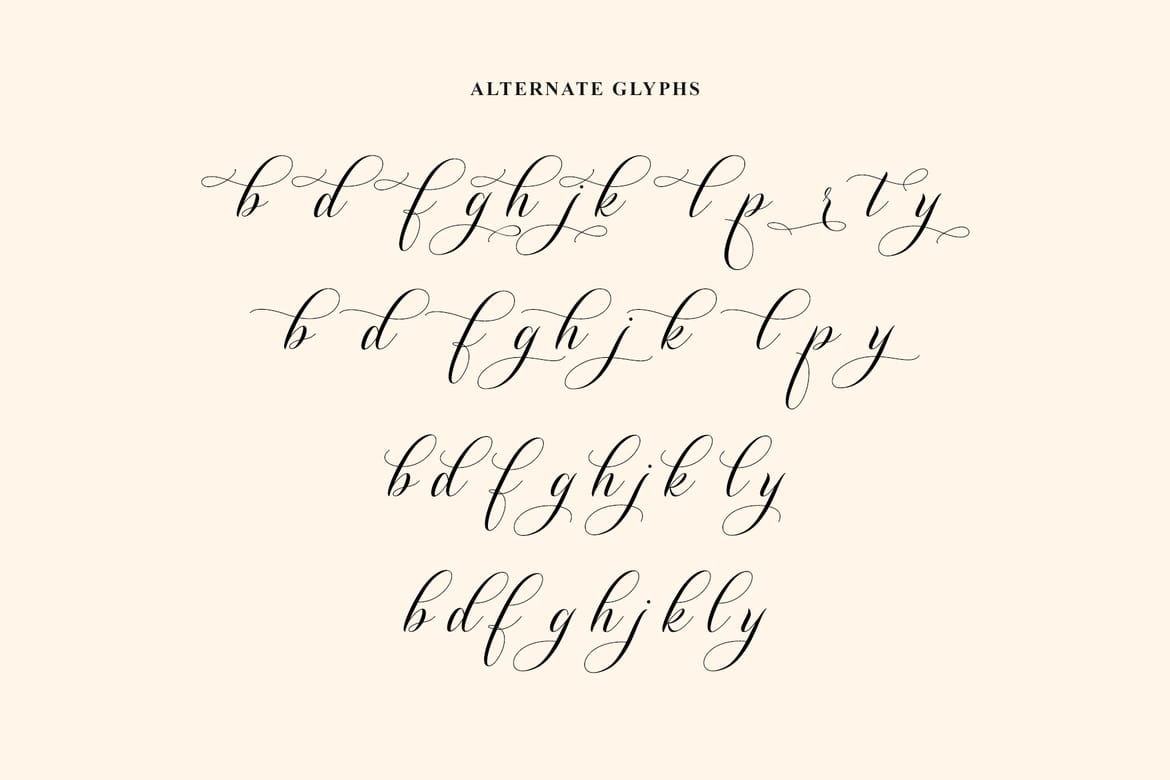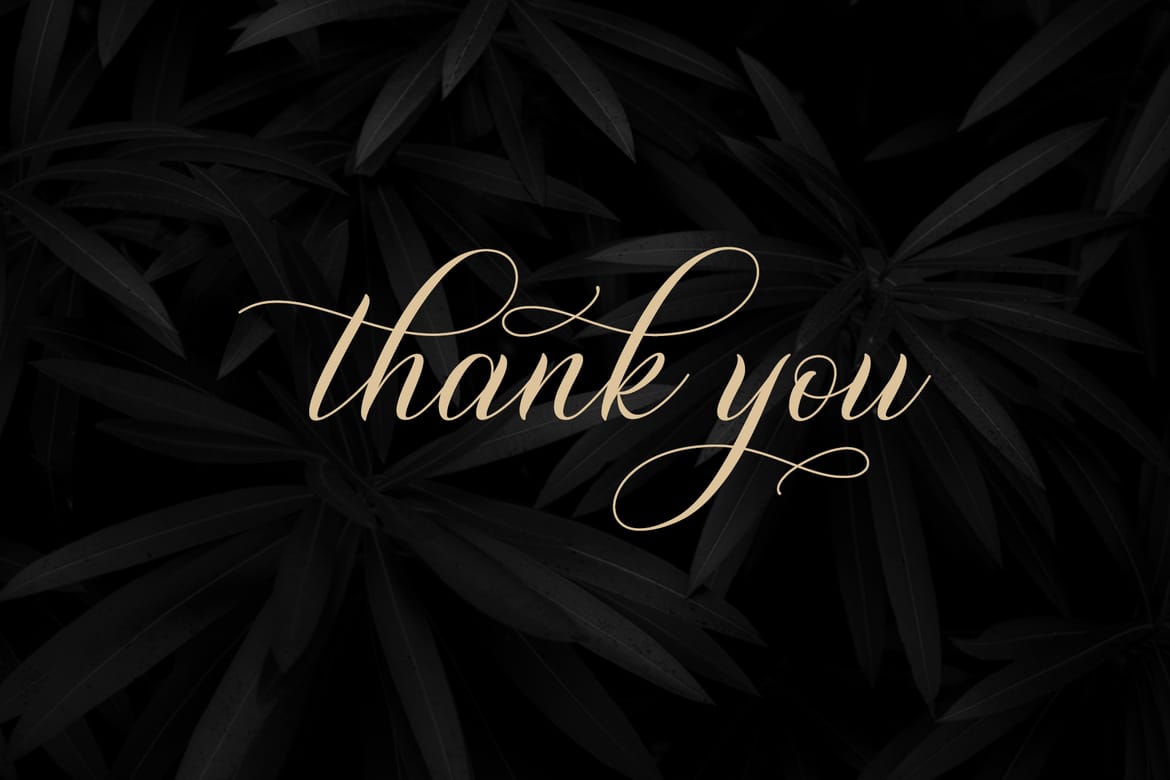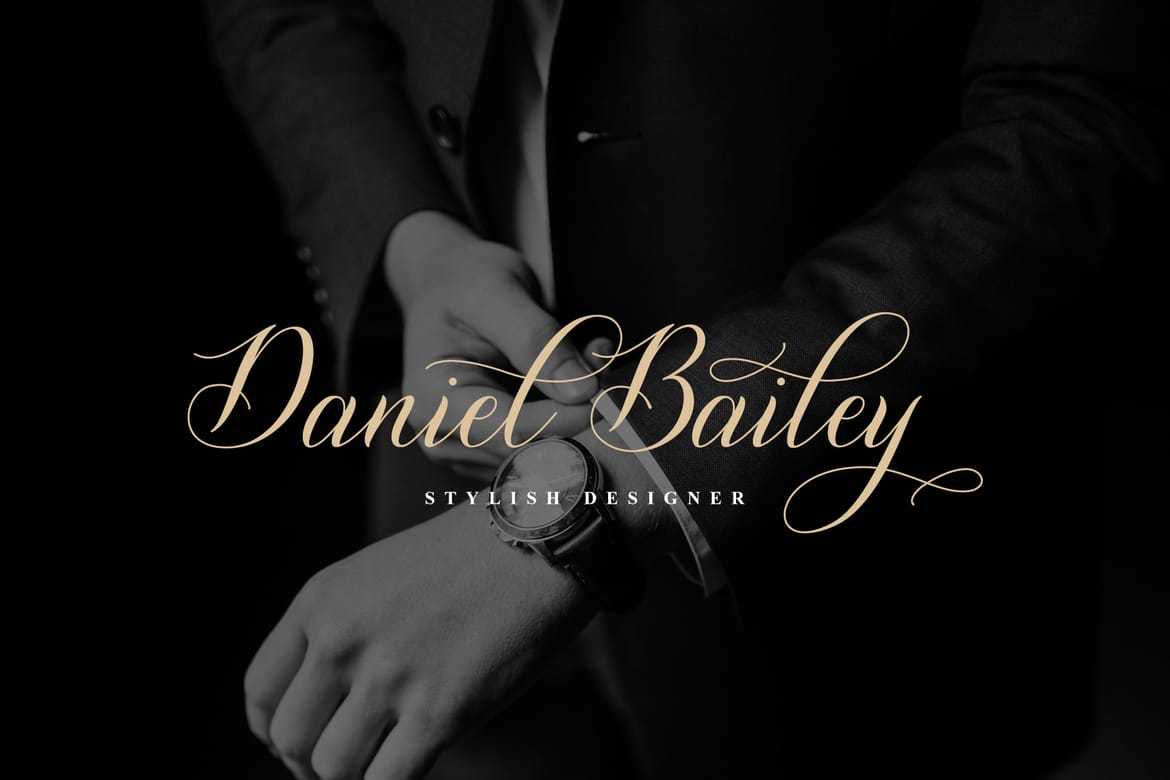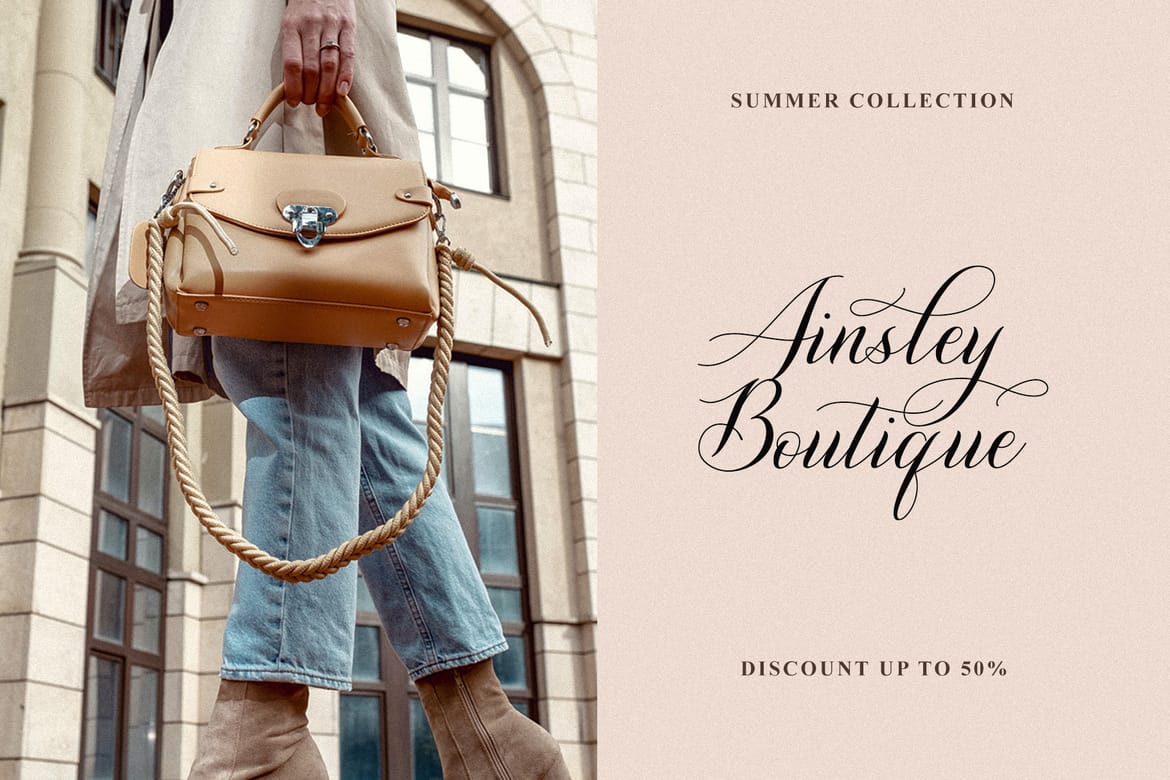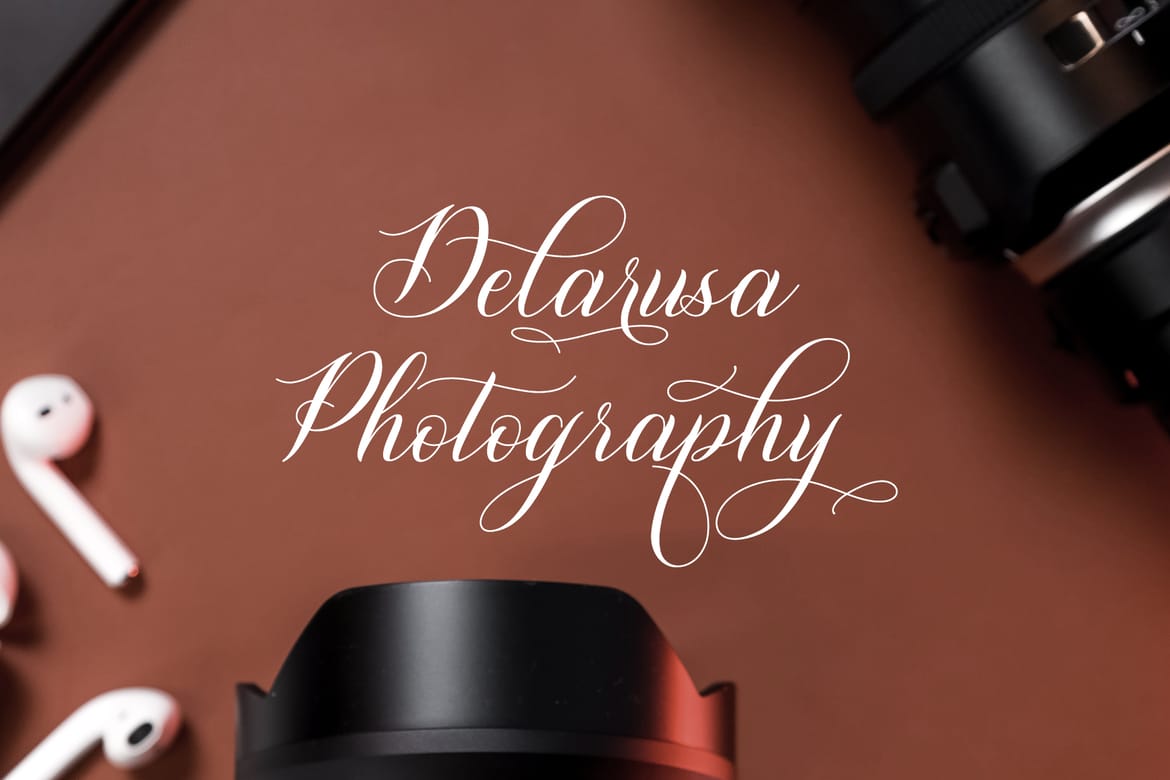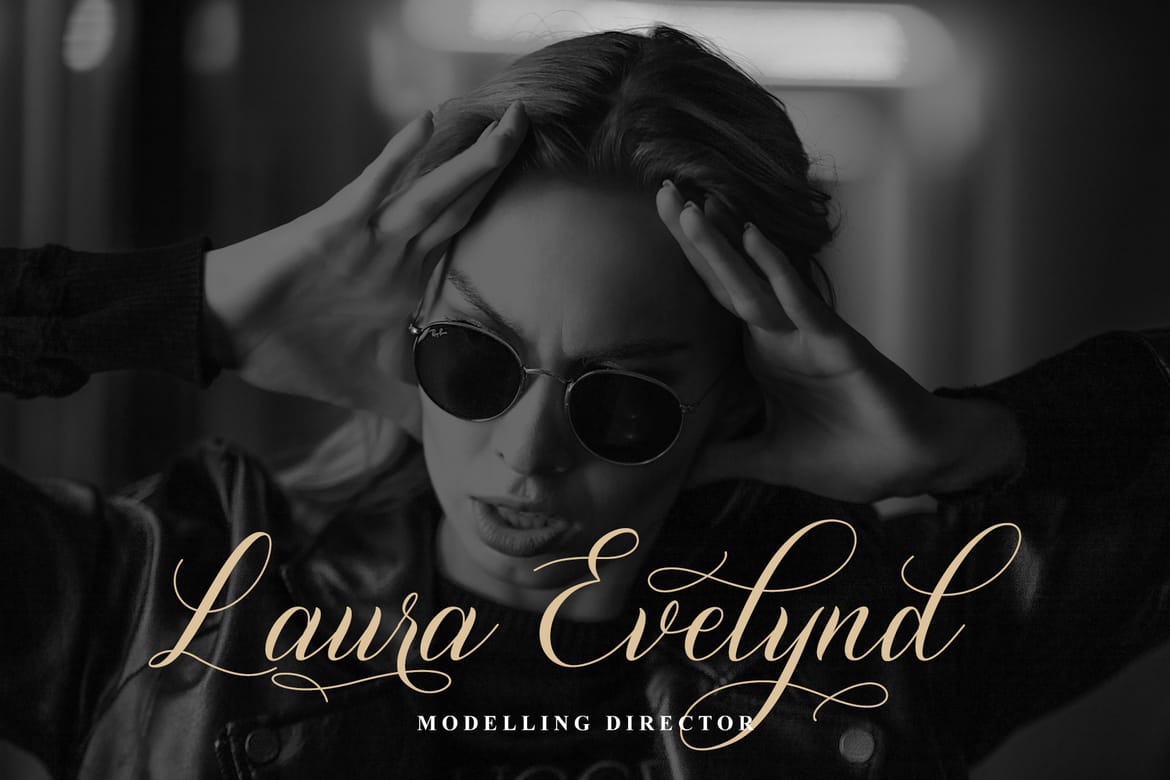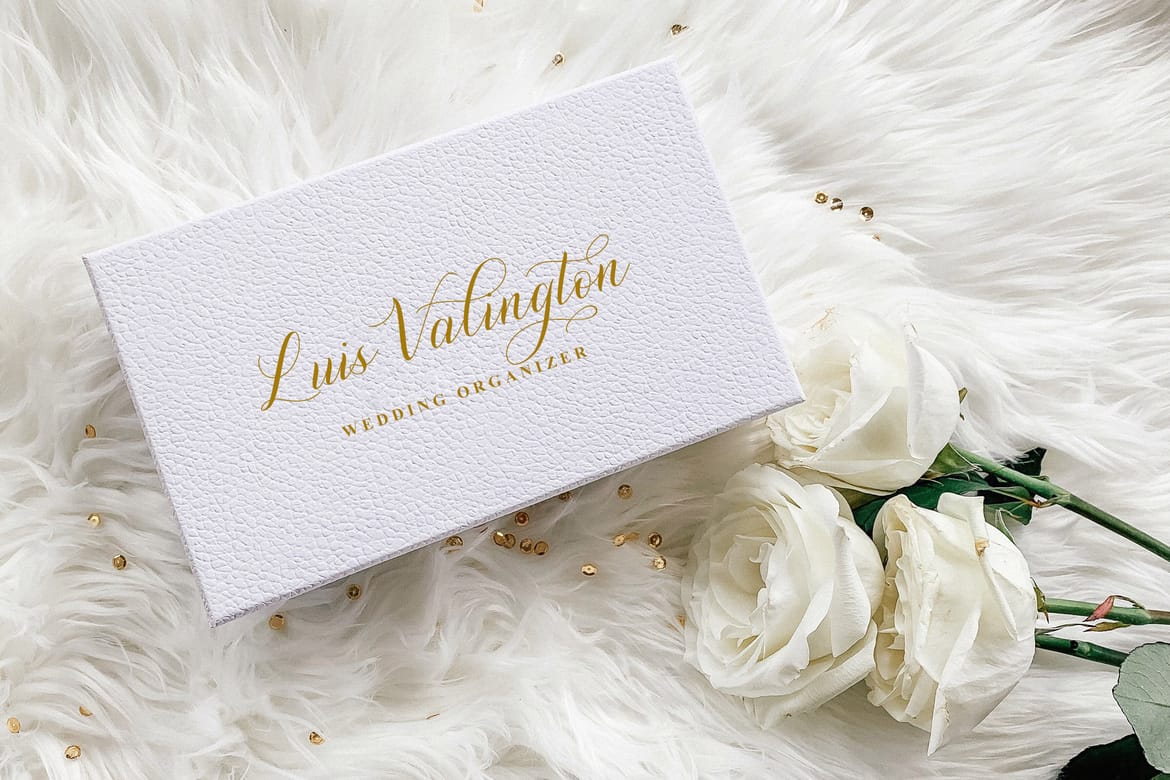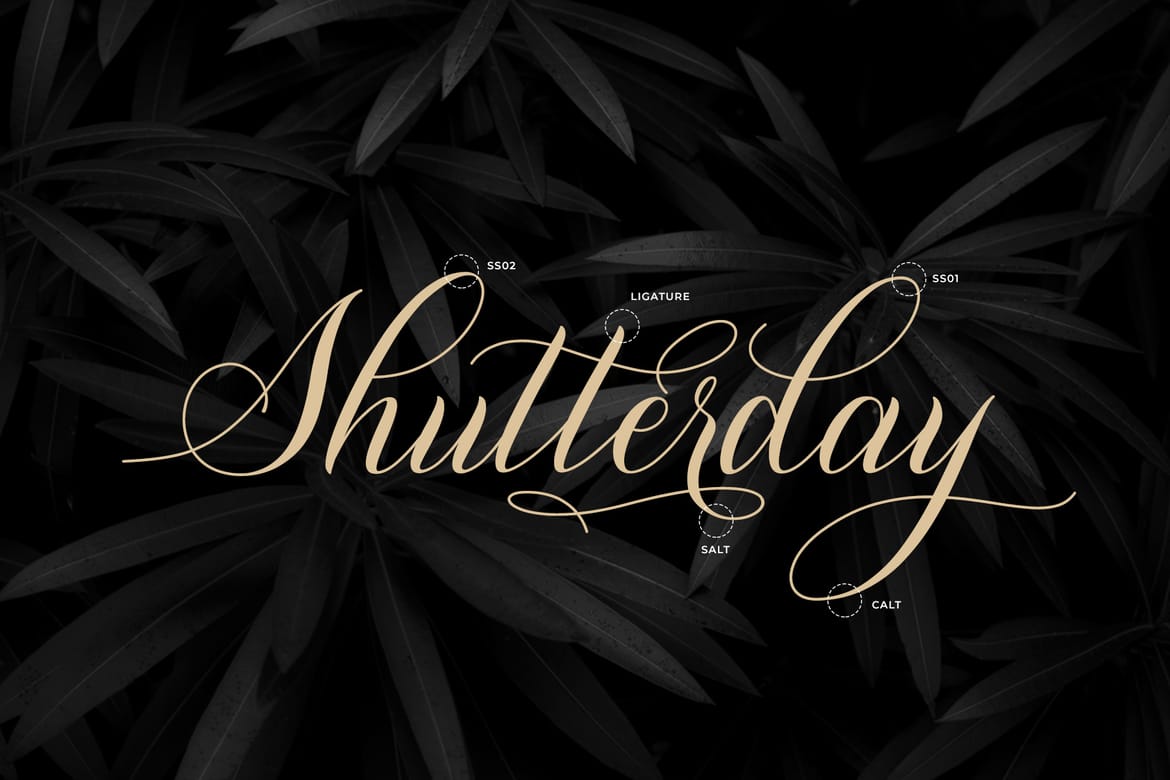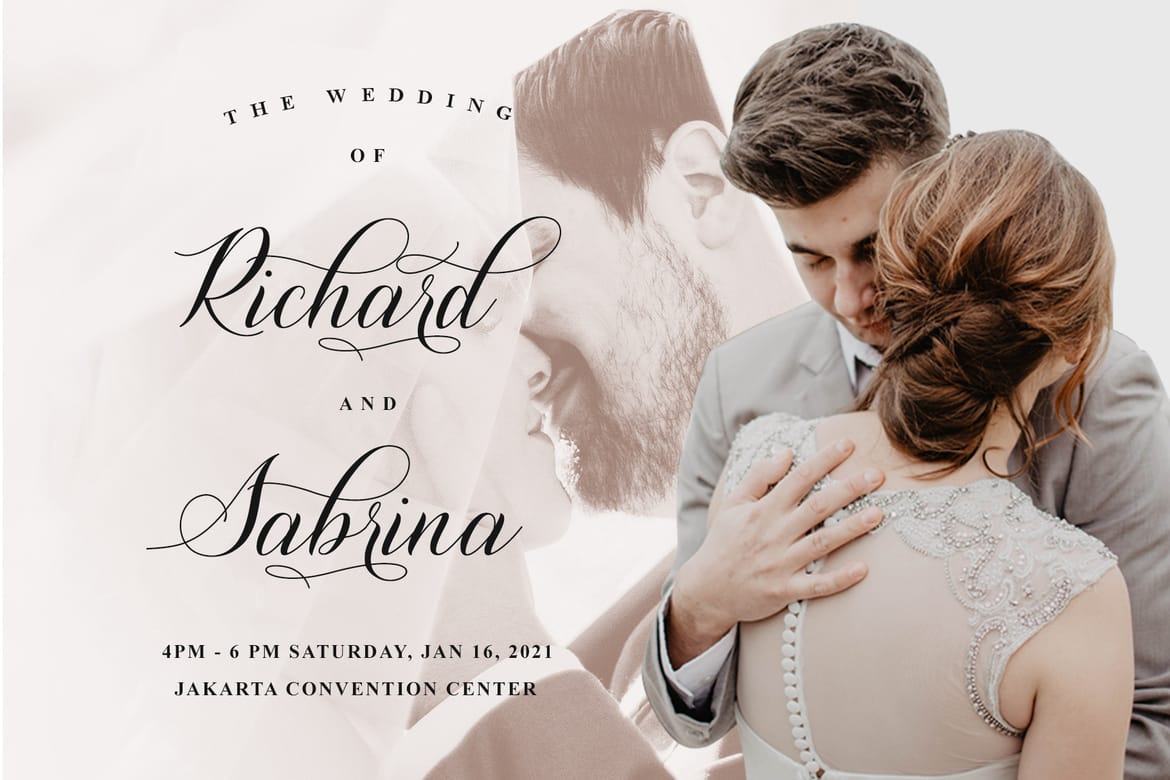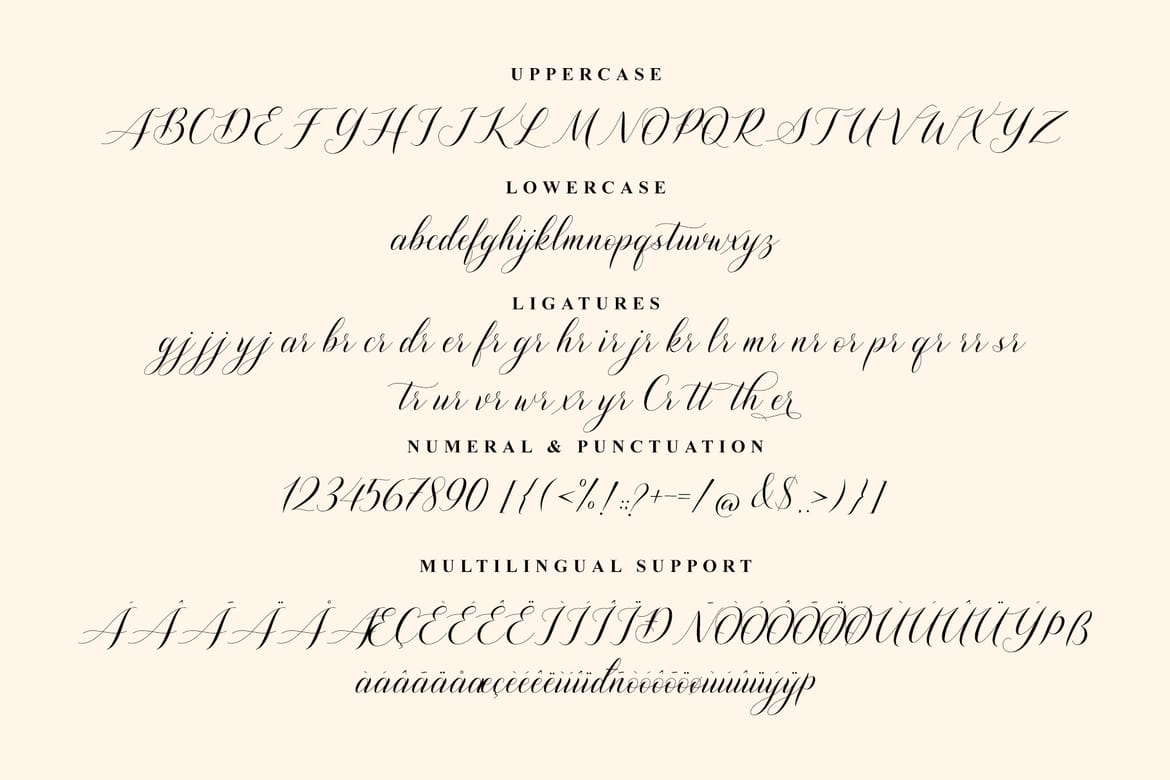
Shutterday is a sophisticated calligraphy font designed to bring elegance, beauty, and timeless charm to every creative project. Featuring flowing handwritten strokes, graceful swashes, and delicate curves, this font captures the essence of modern luxury while maintaining the authenticity of classic calligraphy.
Perfect for branding, wedding invitations, fashion editorials, logos, social media content, packaging design, beauty products, photography watermarks, and premium marketing materials, Shutterday delivers a refined and professional look. Its stylish letterforms and decorative flourishes create stunning typography that instantly attracts attention and elevates visual presentations.
- Ligatures and Alternates
- Multilingual Support